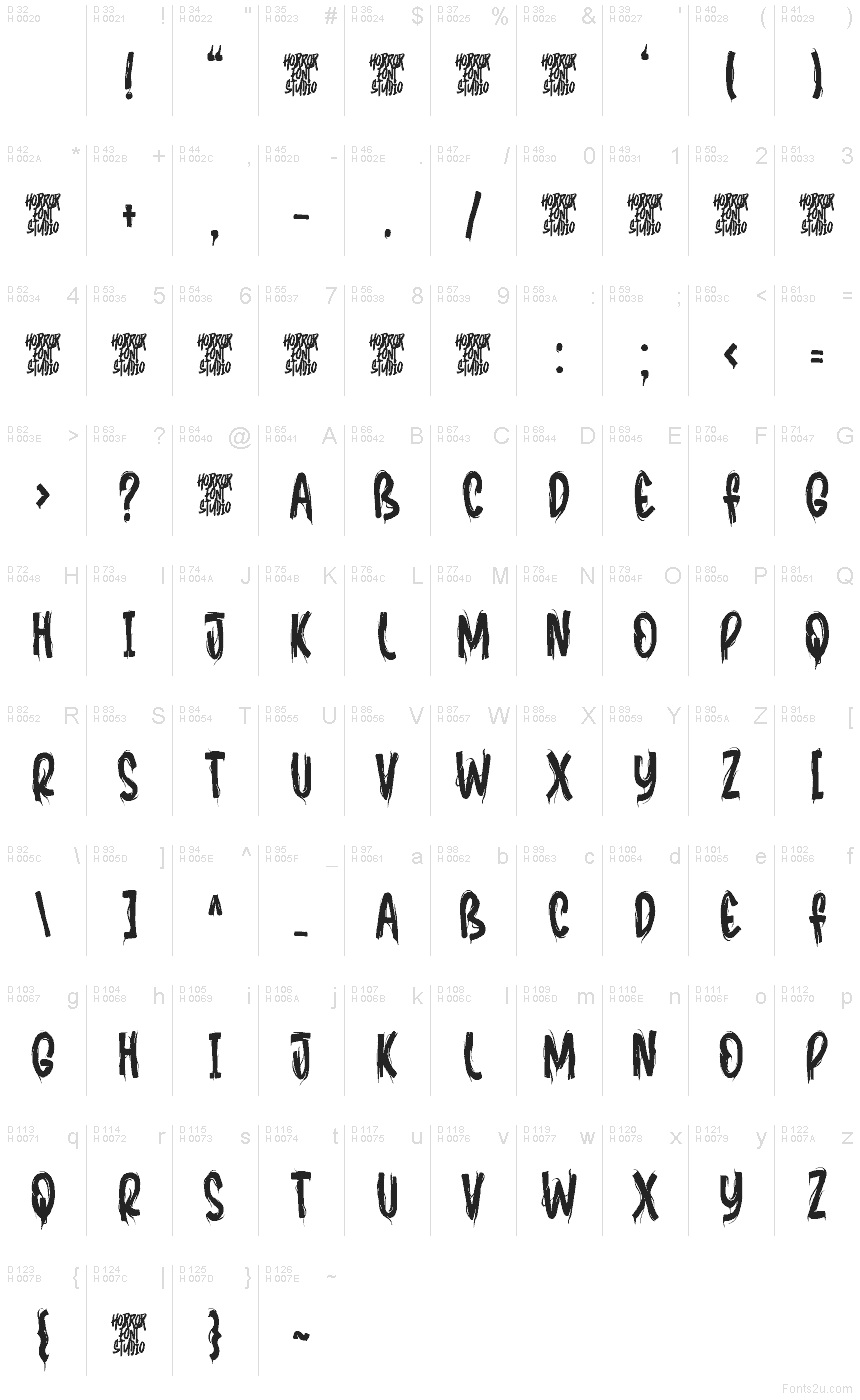
Charmer Horror
Charmer Horror font by Horror Font is a condensed display font with a scary style. Grungy and distressed, its characters lie jagged and eerie on any platform. Gothic-inspired letters are depicted in dark shadowy strokes that amplify their eerie presence to an extreme extent.
This free horror display font will increase the dramatic effect of your posters, headlines, book covers, magazines, printed t-shirts, badges, titles, and logos amongst other print or digital designs.